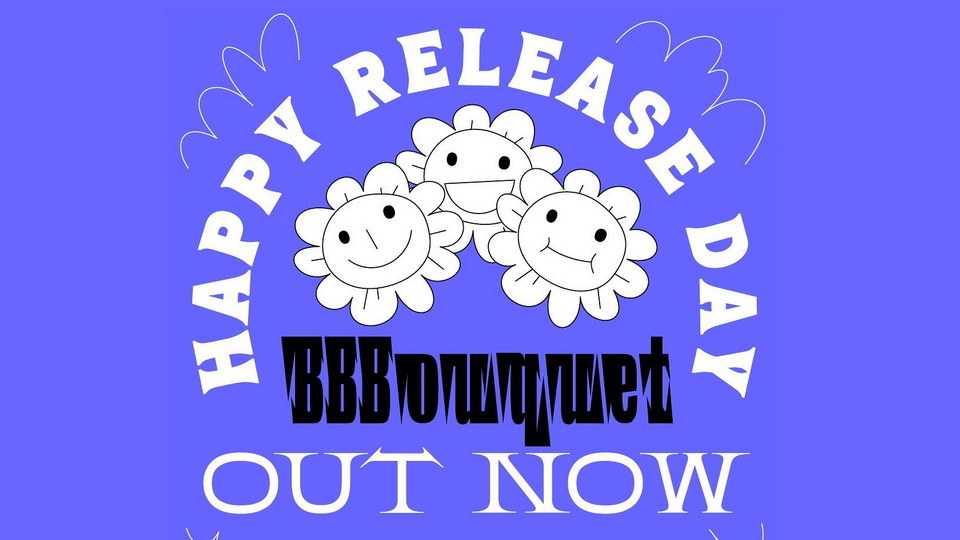
BBBouquet Fonts › Fontesk – Download Grátis
Download BBBouquet font collection, a dramatic and elegant, dangerous and spiky, cozy and sturdy display fonts. Whether you’re writing a love letter or filing a divorce – BBBouquet offers always the right choice of type.
Designer: Lobbby24